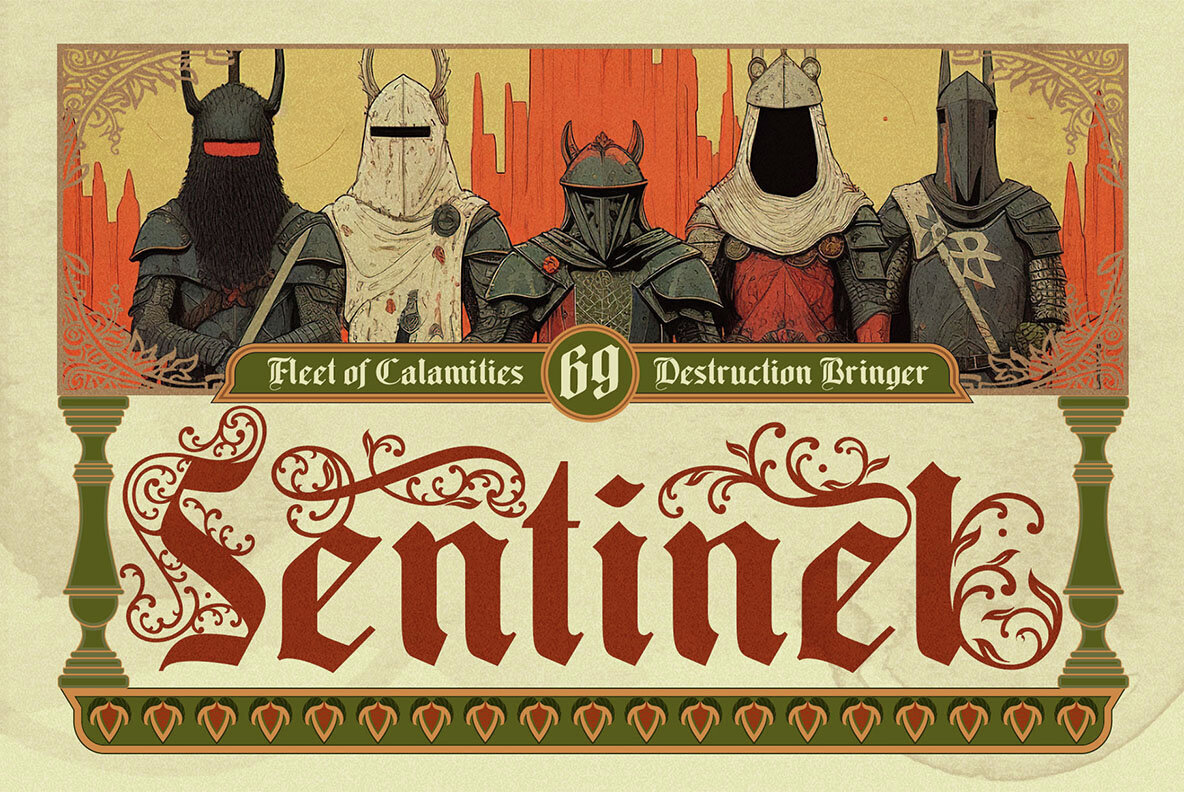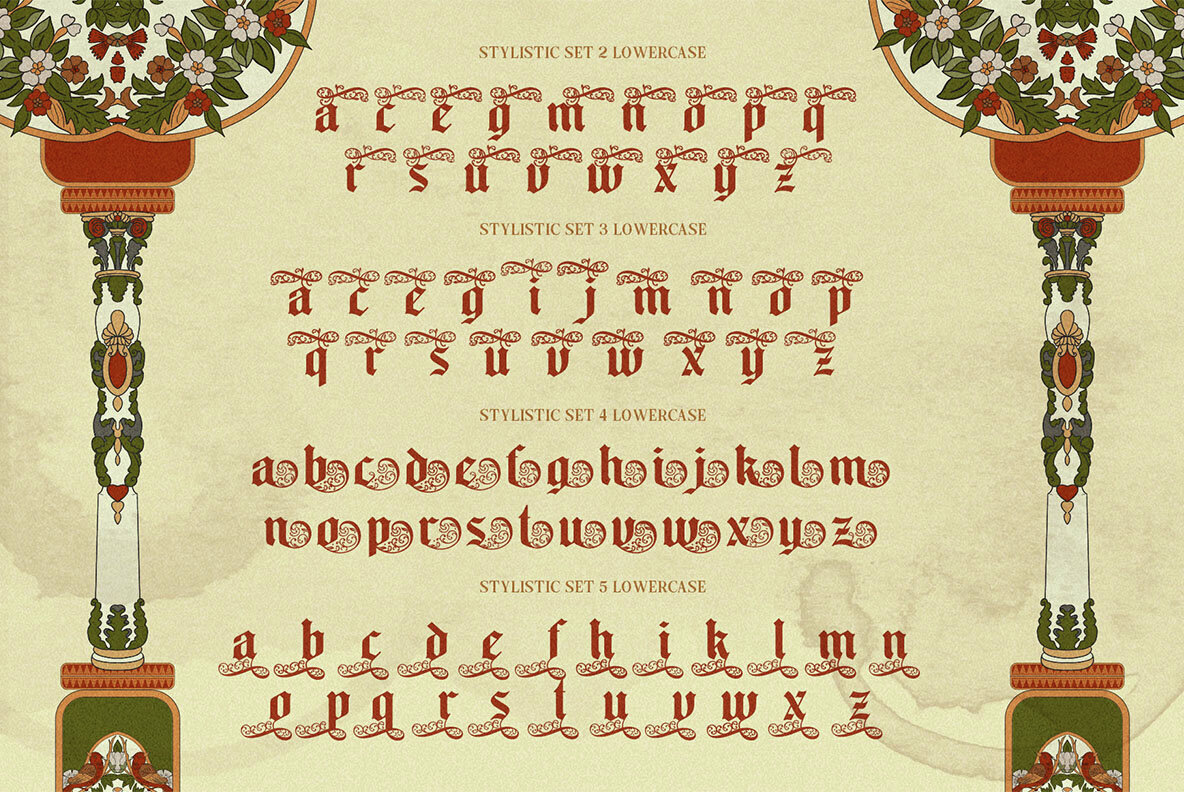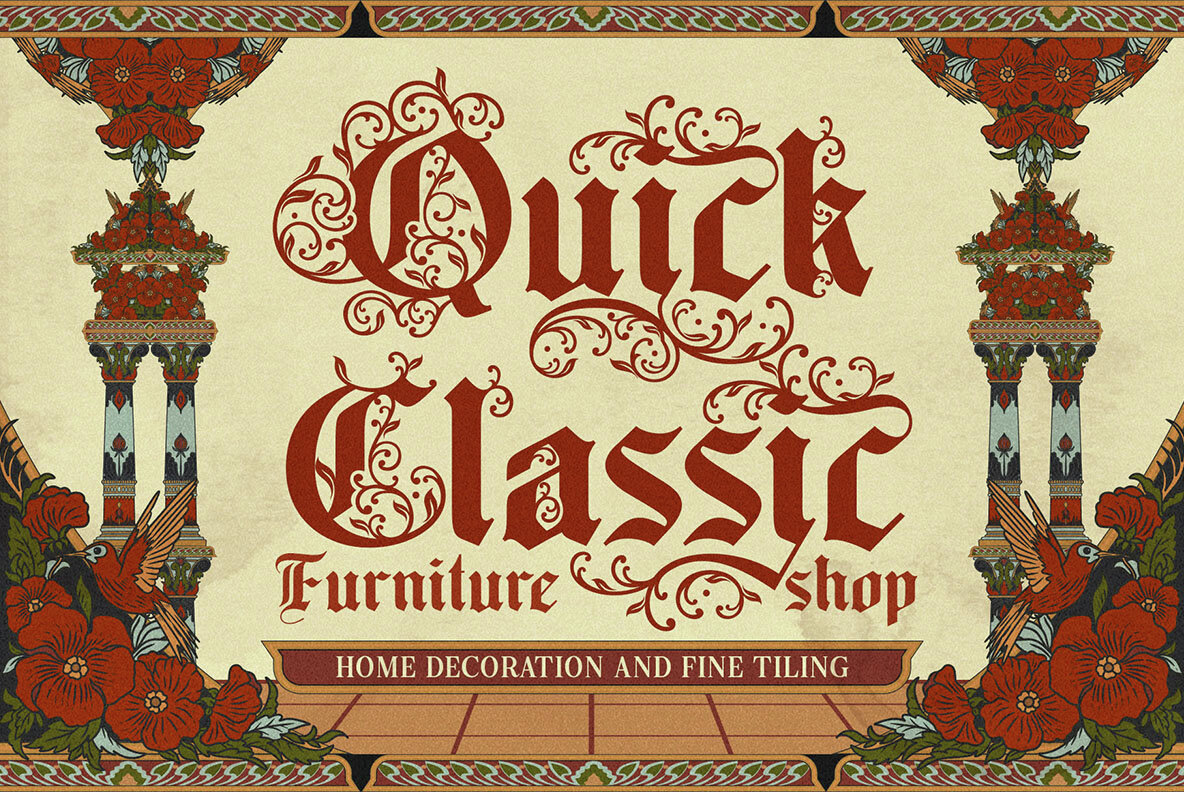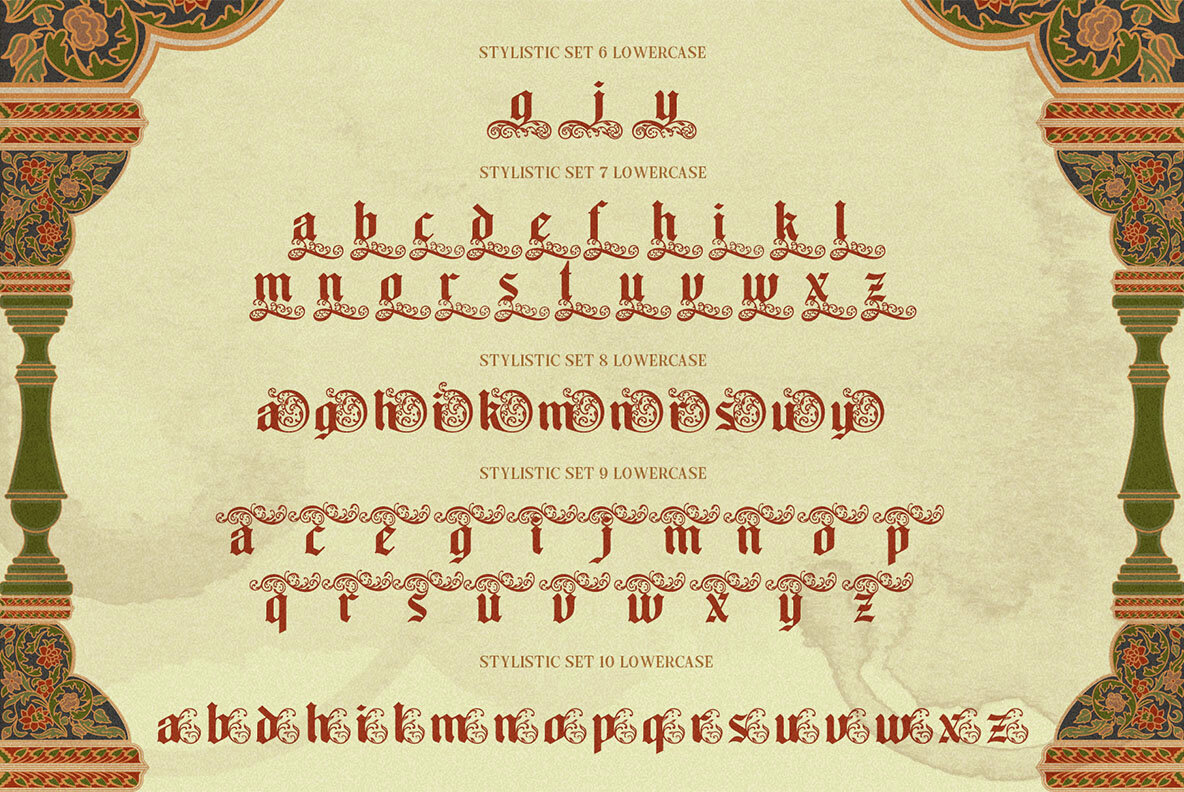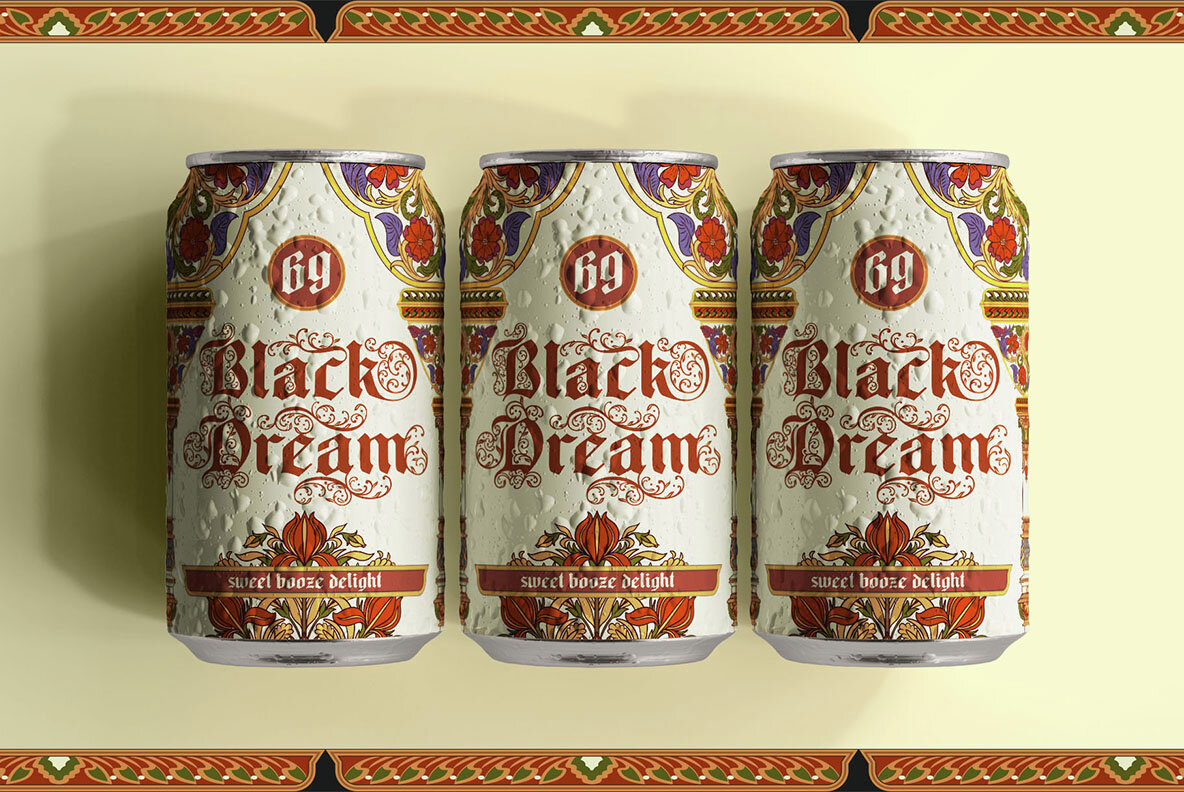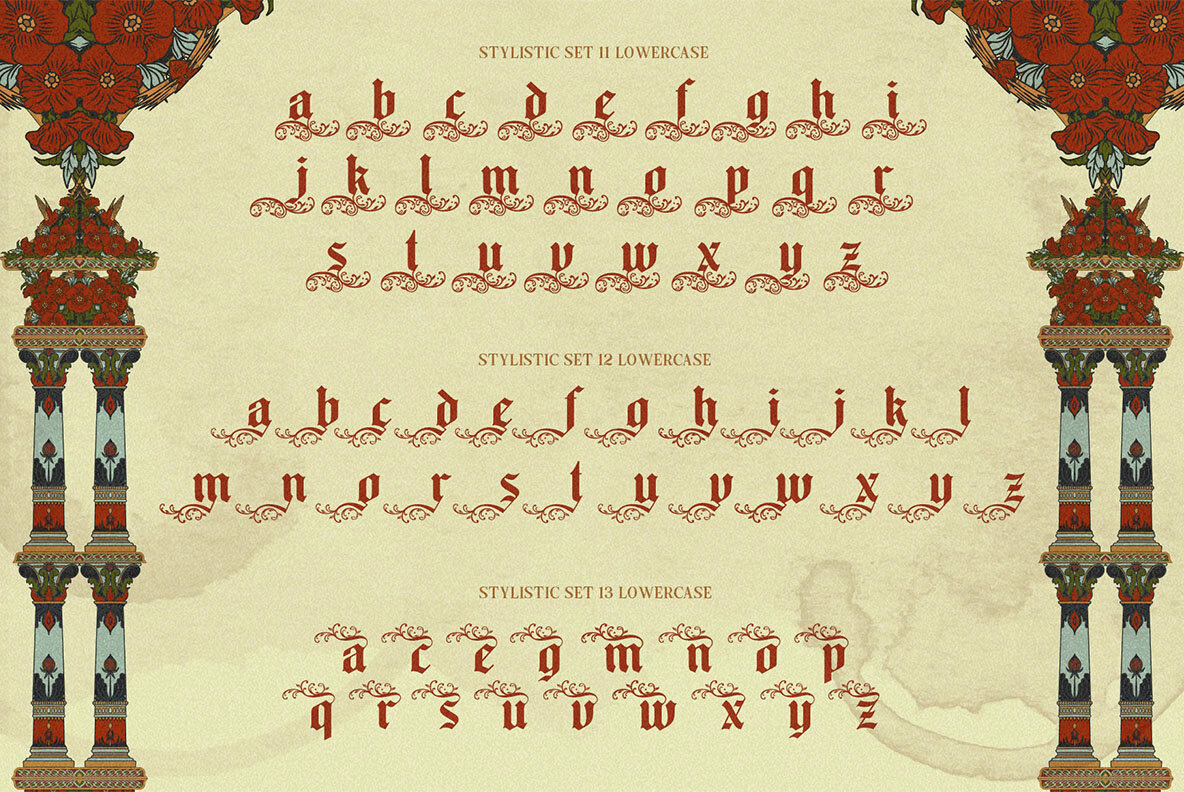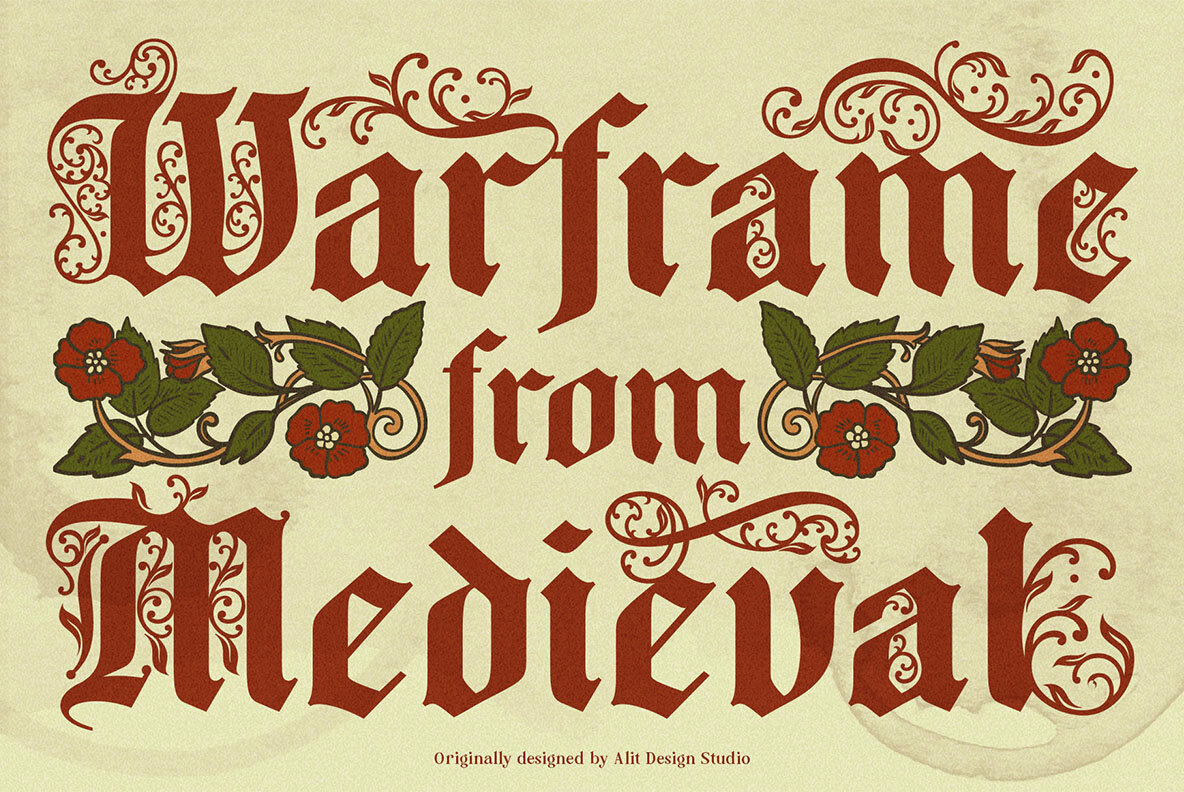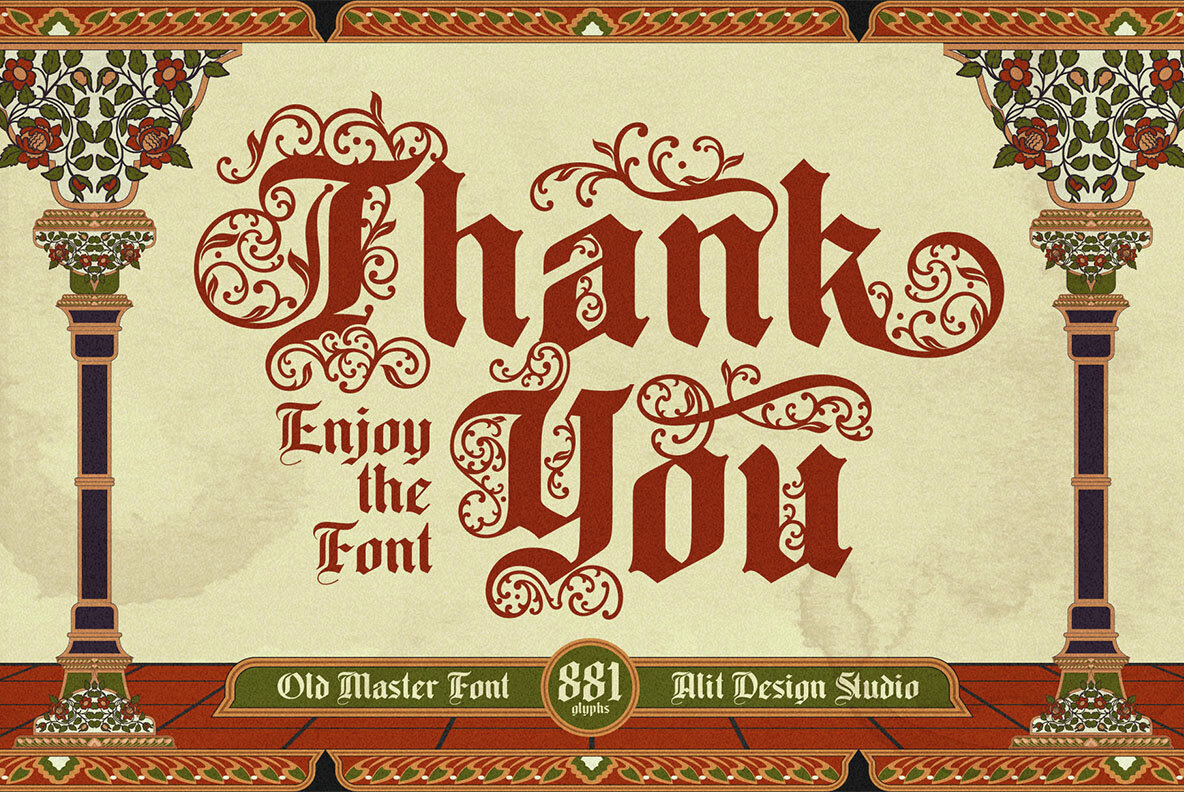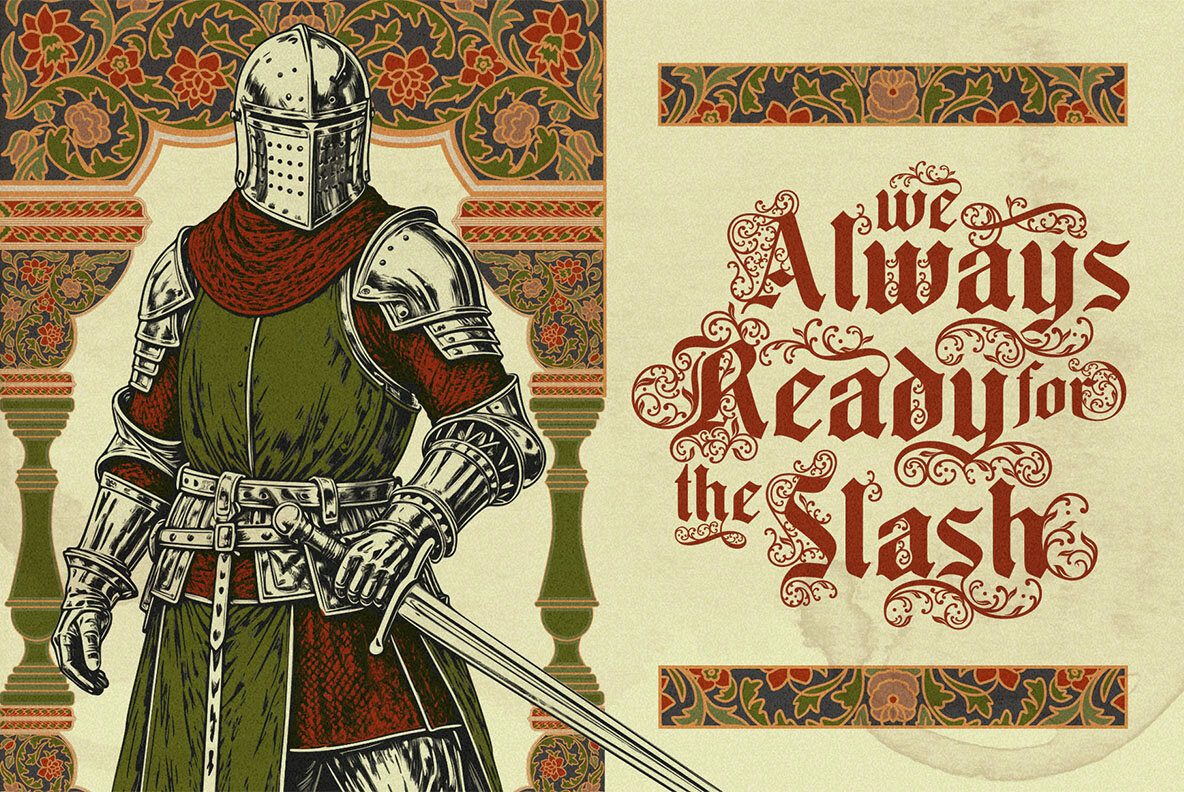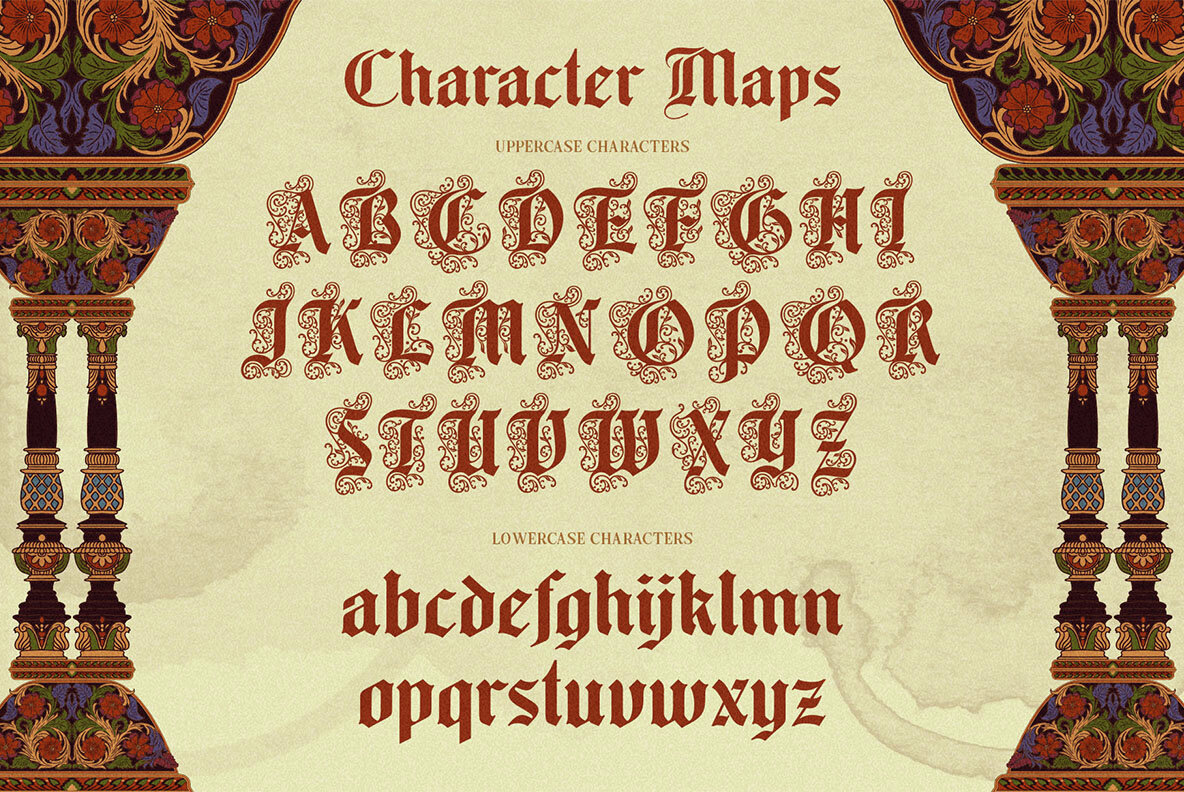
Old Master Typeface provides a meticulously crafted homage to the elegance of medieval scribe artistry and Renaissance grandeur. This font serves as an artistic bridge between historical lettering traditions and contemporary design needs. Each letterform is imbued with a sense of prestige and craftsmanship, making it an ideal choice for those who value exquisite detail in their typographic projects. Embodying a celebration of visual storytelling, Old Master incorporates ornate flourishes directly into its characters, blending elaborate uppercase designs with finely defined lowercase letters. It strikes a careful balance between legibility and stylistic expression, suitable for various creative applications ranging from book covers to finite branding ventures.Old Master Typeface: A Lavish Blackletter Revival
Design Use Suggestions:
The Old Master Typeface reverberates with the histories of scribes and artisans, delivering a powerful visual tool for designers with an appreciation for the artistic finesse of old-world lettering. Each letter harbors its own narrative, ready to enrich your next project with its storied echoes.